Carter & Cone
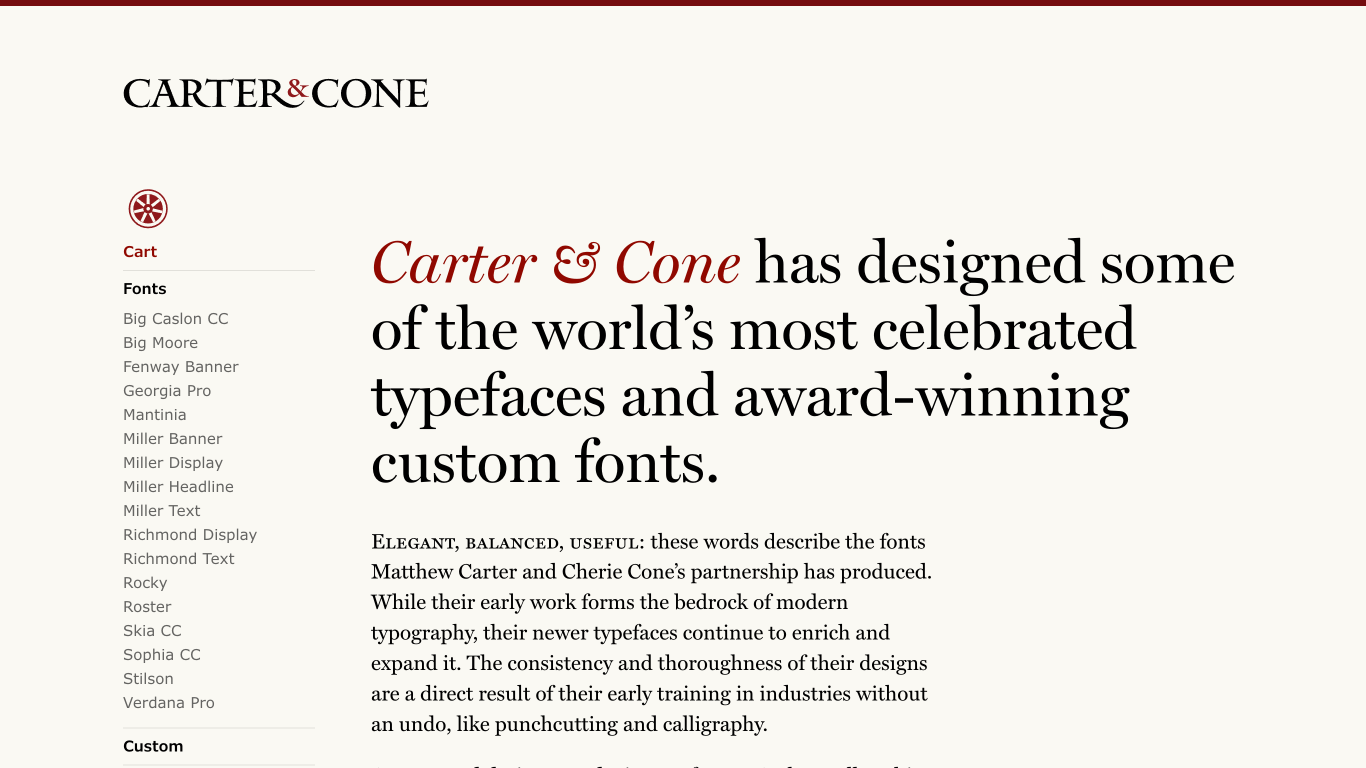
1992
Carter & Cone Type Inc. is a digital type foundry based in Cambridge, Massachusetts, specializing in designing and producing original typefaces. Founded in 1992 by renowned type designer Matthew Carter and business manager Cherie Cone, the foundry has created some of the world's most celebrated typefaces, including 'Georgia', 'Verdana', and 'Miller'. Their work is characterized by elegant, balanced, and useful designs that have become integral to modern typography.